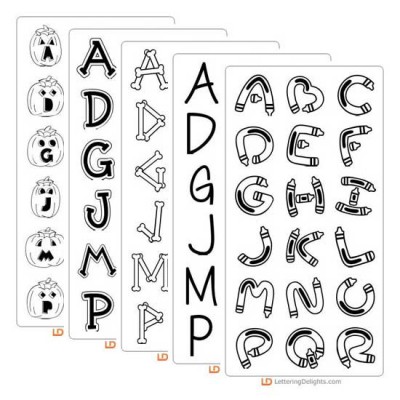
Teaching Delights Vol 2
Back by popular demand, this is Lettering Delights' way of giving back to teachers. The second volume of this incredible package includes 30 full color alphabets and 20 TrueType fonts.
Scrap Crayon - Font
Not exactly the crayons that melted on the car's dashboard. These crayon shaped letters are easy to ..
Scrap O' Lantern - Font
Get ready for Halloween with this font! Each Jack-O'-Lantern has a mouth shaped like a letter or ke..
Scrap Bones - Font
Make no bones about it. This font looks exactly as it sounds. A perfect highlight for any Halloween ..
LD Shadow - Font
A bold, thick, heavy white faced font with a 3 dimensional shadow...
LD Shelly Print - Font
This font was created for Shelly Christensen's family. Shelly recently passed away following a lengt..
LD Notebook - Font
Take note! No trees lost here. Just a neatly lined notebook style font that's perfectly suitable for..
LD Musical - Font
Join the chorus when you use this beautifully musical font. A perfect fit for anything music!..
LD Flowers - Font
All the beauty of flowers with a hand-stitched appeal. A terrific choice for a page title, thank-you..
Baby Grand - AL
If you are looking for a musical alphabet, this piano inspired one will be perfect for you...
Sweetheart - AL
This alphabet reminds you of the fun carefree days of youth when you opened a box of sweethearts and..
Vanity Plate - AL
Create your own custom license plates using this fun alphabet. Uppercase and lowercase are two diffe..
Snowed Under - AL
There's nothing like being snowed in! The letters of this alphabet have a snow cap on top. It looks ..
Palette - AL
The artists palette is ready for you to get started painting. It's time to get your paint brush and ..
Veggies - AL
The letters of this alphabet are nestled inside a variety of garden vegetables (tomatoes, carrots, o..
Crossword - AL
Put on that thinking cap, it's time to work on the crossword puzzle! Each letter appears to have bee..
Lollipops - AL
Each letter of this alphabet is centered in the colored portion of a lollipop. It's just the right ..
Flagpole - AL
The stiff breeze blowing by has made these flags stand to attention. Each letter is attached to a fl..
Pert - AL